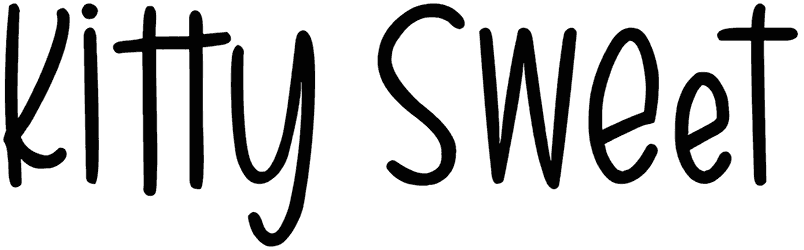
Kitty Sweet Font
Kitty Sweet is a clean and classic script font that looks good for fancy parties and informal events. By choosing this handwritten font, you can stand out from the crowd.
If you are looking for a simple way to make noise around and make a great impression, this menu font can be a stylish way to attract the audience’s attention and introduce your brand and product.